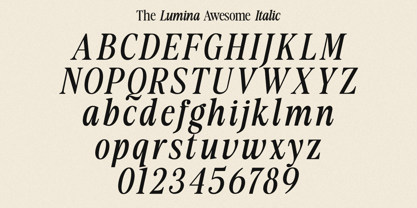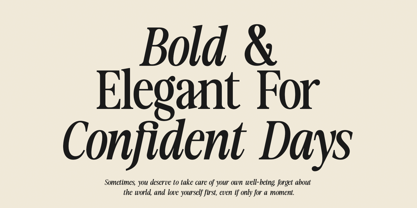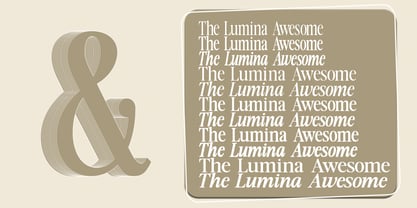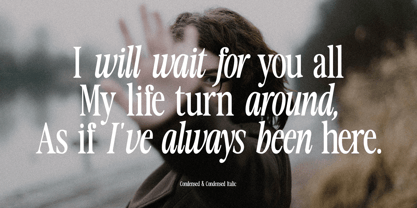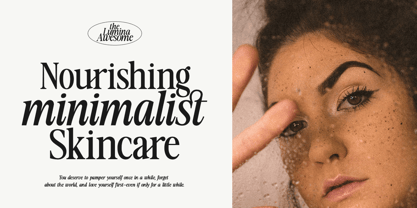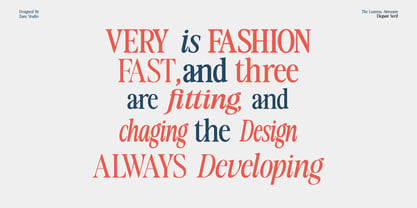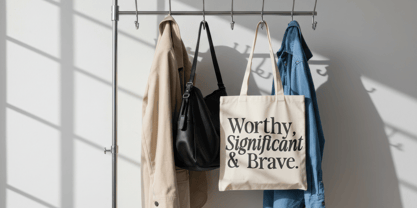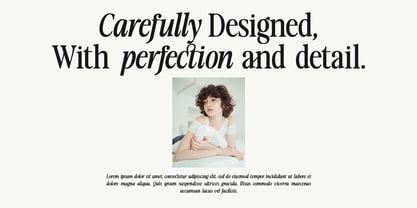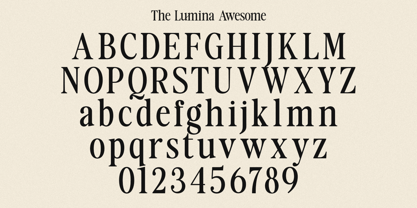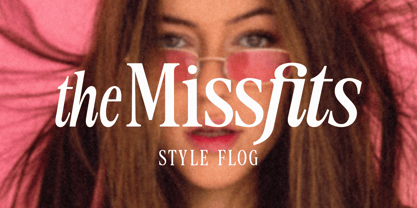
The Lumina Awesome
The The Lumina Awesome Font Family was designed by Mur Zani and published by Zane Studio. The Lumina Awesome contains 11 styles and family package options. More about this family
The Lumina Awesome is a modern vintage serif font that radiates sophistication and timeless elegance. Its exquisitely crafted letterforms add a luxurious touch to any design project. With a distinct and charming character, this font is highly versatile, making it ideal for a wide range of creative applications. Perfect for branding, logo design, apparel styling, packaging, magazine headlines, advertisements, and greeting cards, Lumina Awesome significantly enhances the visual appeal of any project. Experience the perfect blend of tradition and modernity with this exquisite font family, which offers multiple weights and OpenType features for enhanced functionality and design flexibility.